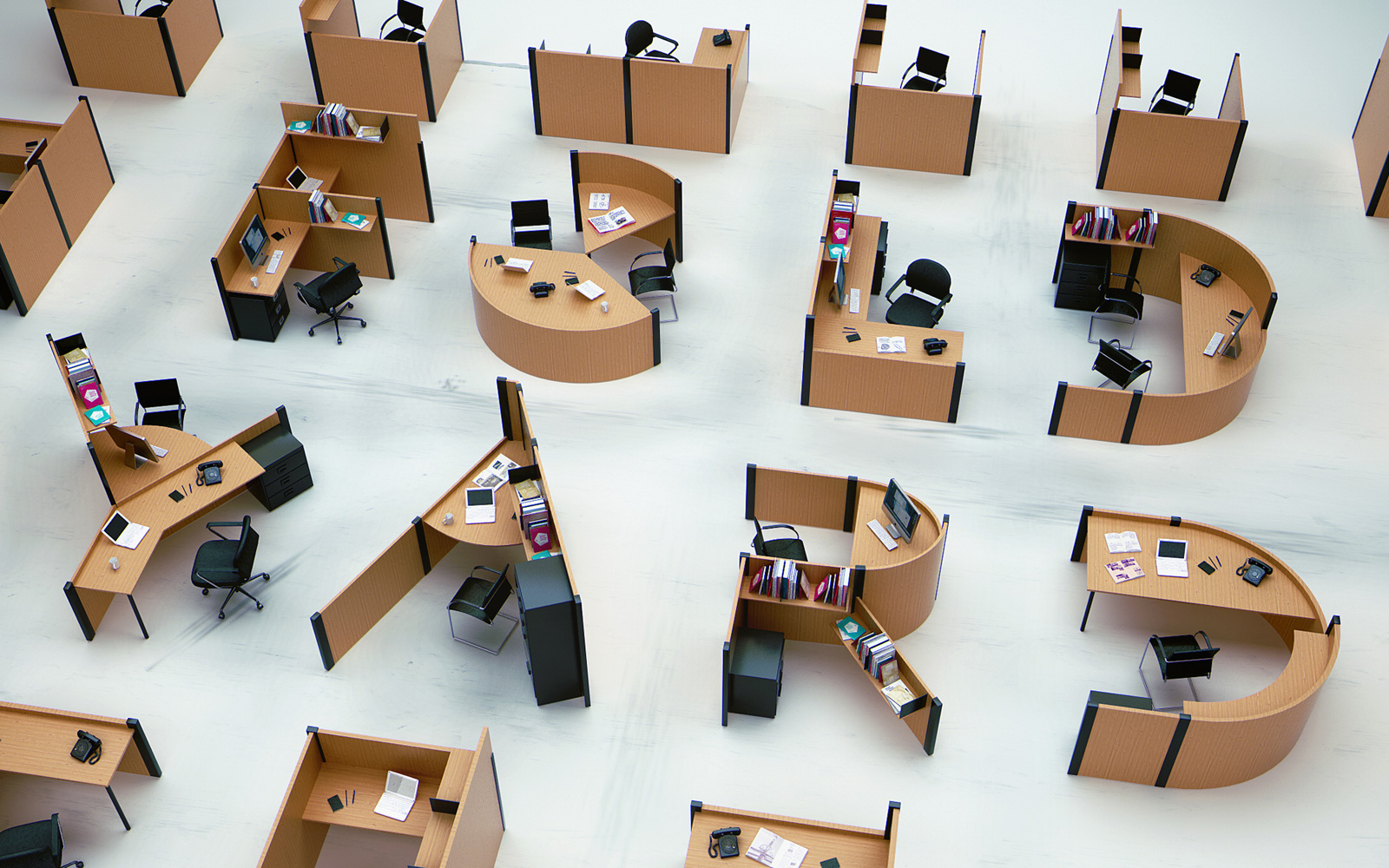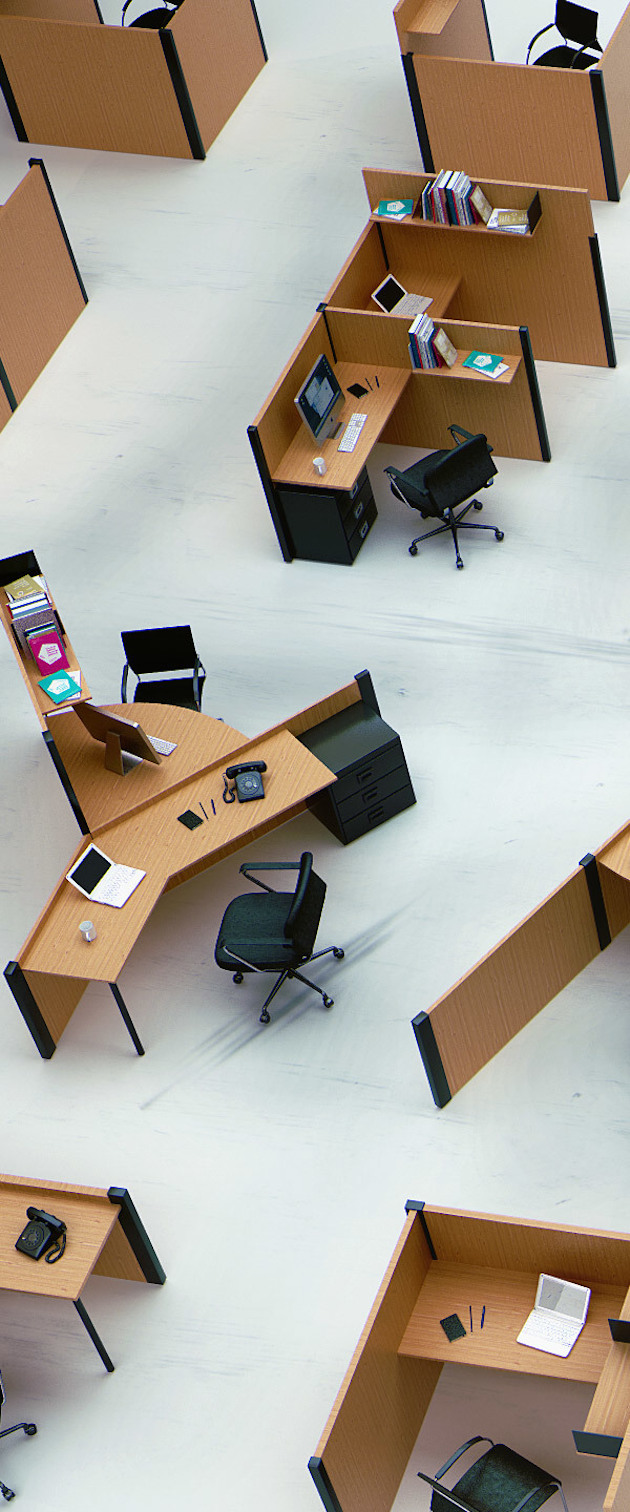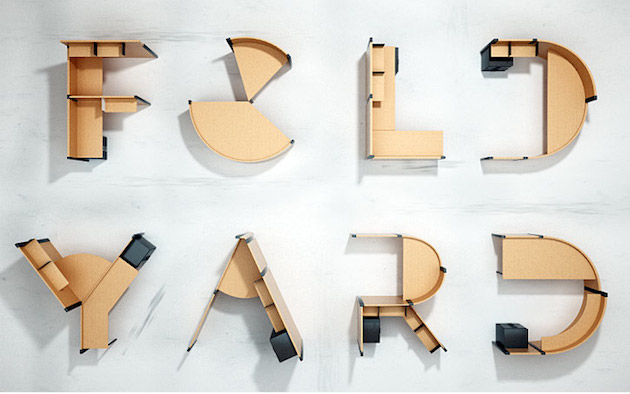
Conceptual typography for office
French creative image maker Benoit Challand has come up with a 3D typography-inspired open office space concept entitled ‘Fold Yard’. In this office, every desk will be designed in the shape of an alphabet to enhance creativity and interaction among colleagues. A really interesting work that interwines design and typography.